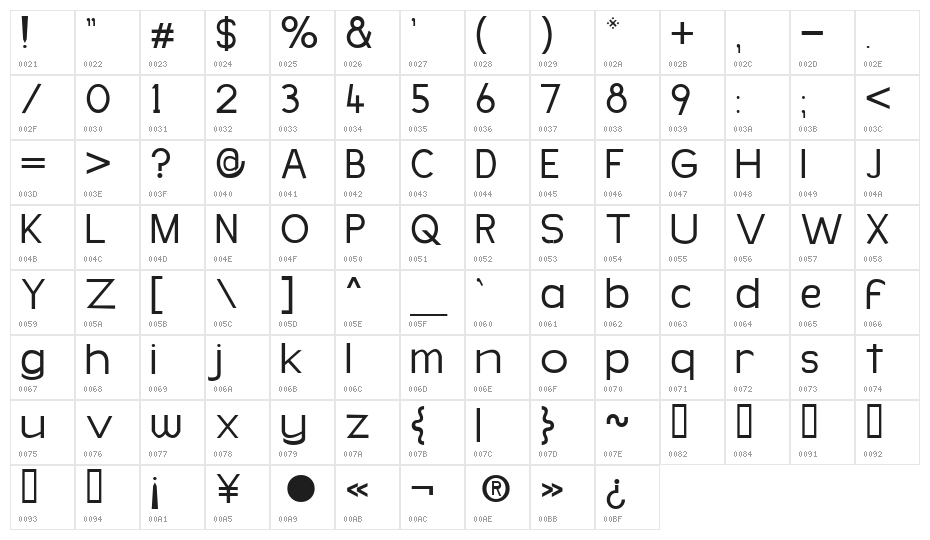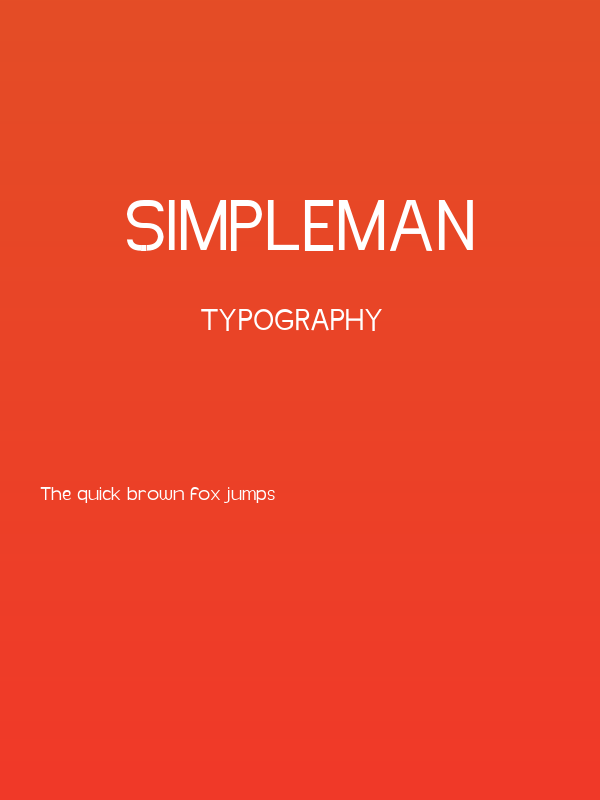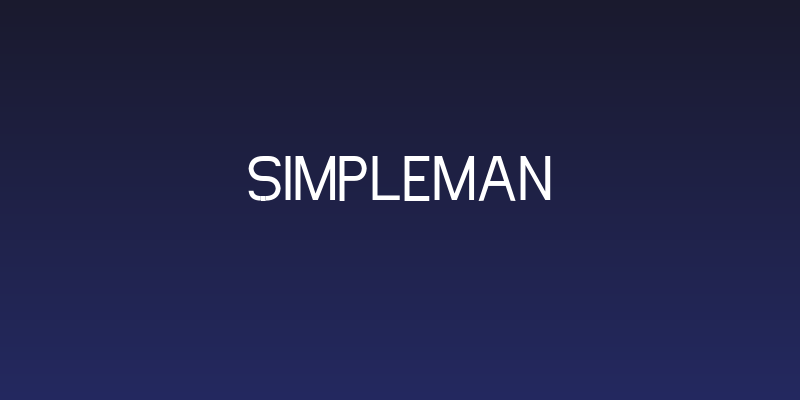
Simpleman Font
Simpleman Description
This font features a clean and modern sans-serif design, characterized by its geometric shapes and uniform stroke widths. The letters are well-proportioned, offering a balanced and harmonious appearance. The uppercase characters are bold and assertive, while the lowercase letters maintain a friendly and approachable style. The numerals are clear and easy to read, making them suitable for various applications. Special characters are designed with simplicity in mind, ensuring they blend seamlessly with the rest of the typeface. Overall, this font exudes a contemporary and professional vibe, making it versatile for both digital and print media.
Use CaseHeadlines, Body text, Logos
Proposed ProjectsIdeal for branding, web design, advertising, and editorial projects where clarity and modernity are key.